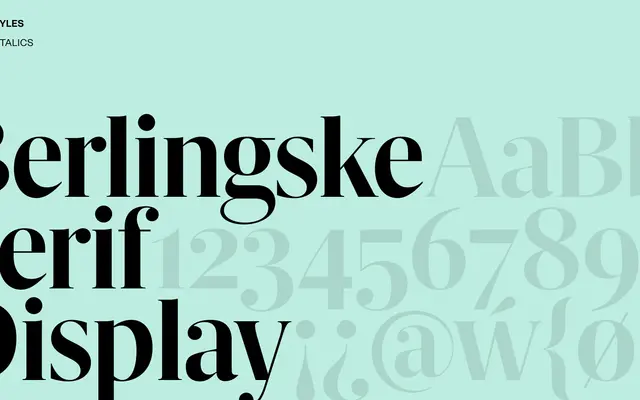
Berlingske Serif Display
A display-cut serif from Playtype's Berlingske family, optimised for large-scale editorial and headline use.
Part of Playtype's broader Berlingske type system, this display-specific cut is shaped for prominent typographic settings such as magazine covers, newspaper headlines and advertising. The page offers minimal technical detail, but the editorial tone of the sample copy points to a refined, high-contrast serif suited to expressive, large-scale composition. Its Danish origins and Berlingske name suggest roots in Scandinavian newspaper typography.
Named as a display variant of a serif family, intended for large-scale headline use; the 'Display' designation and editorial context suggest high-contrast, optically sized letterforms for prominent settings.